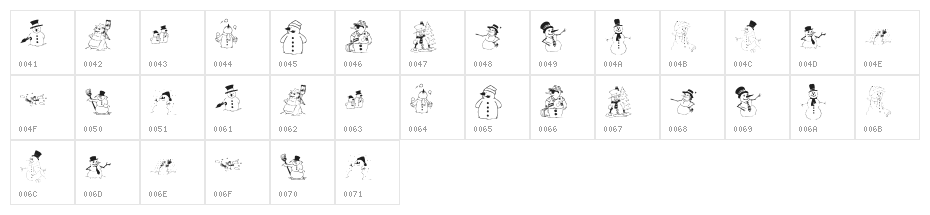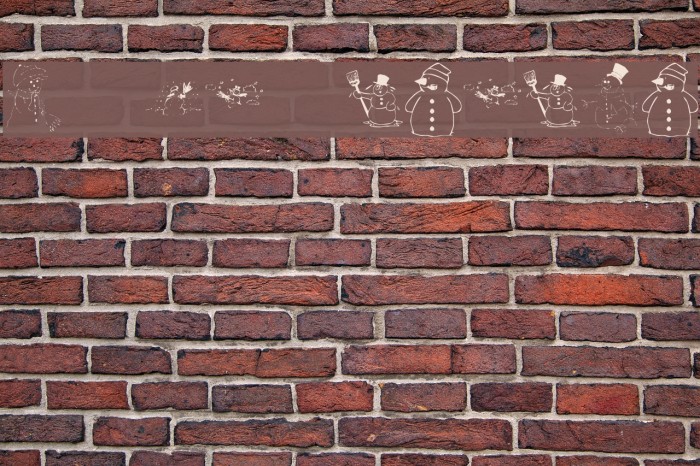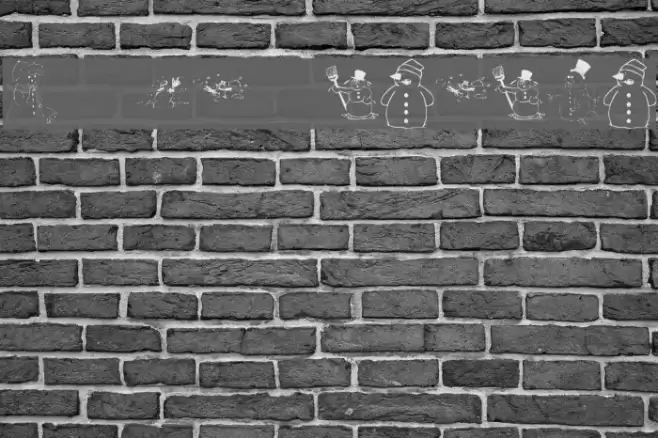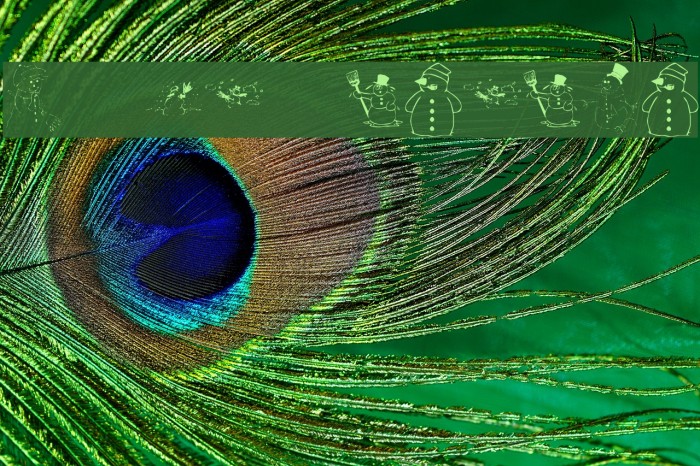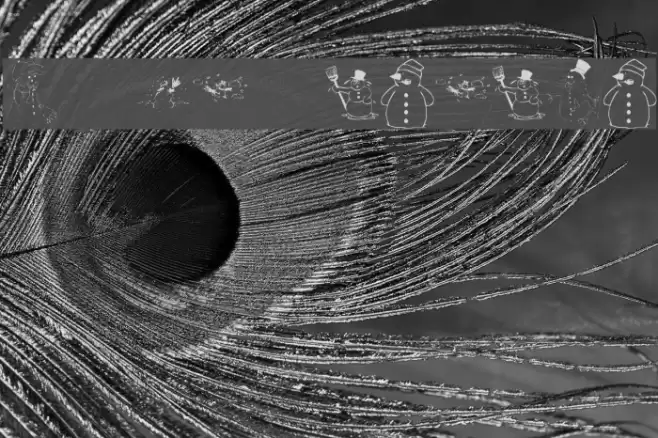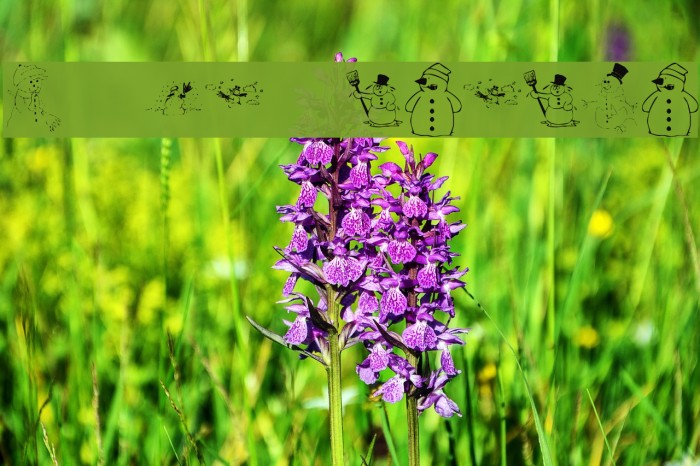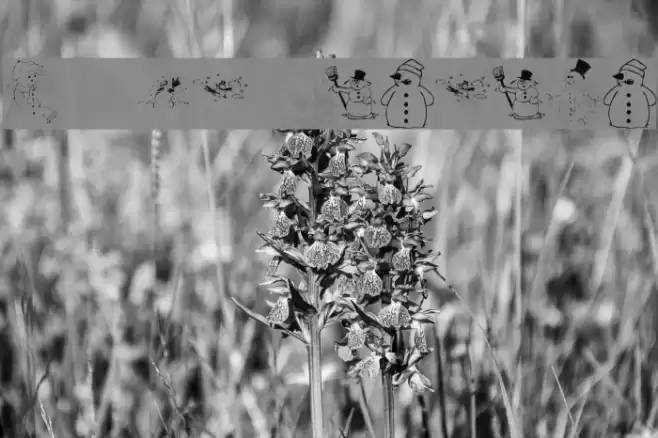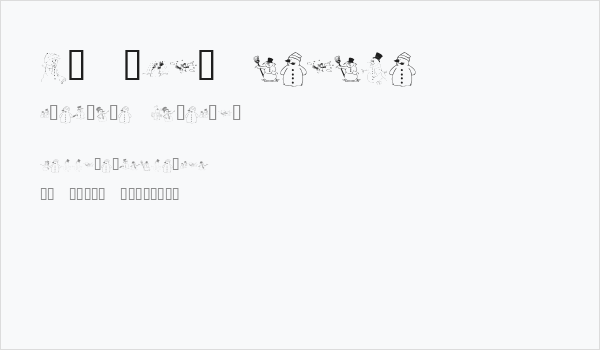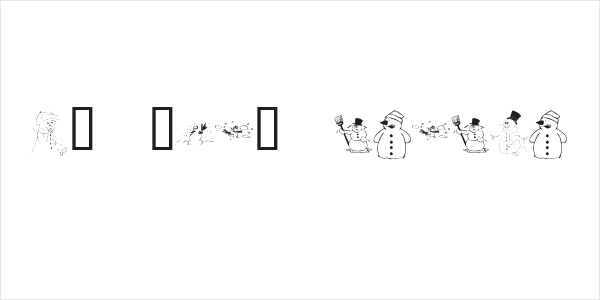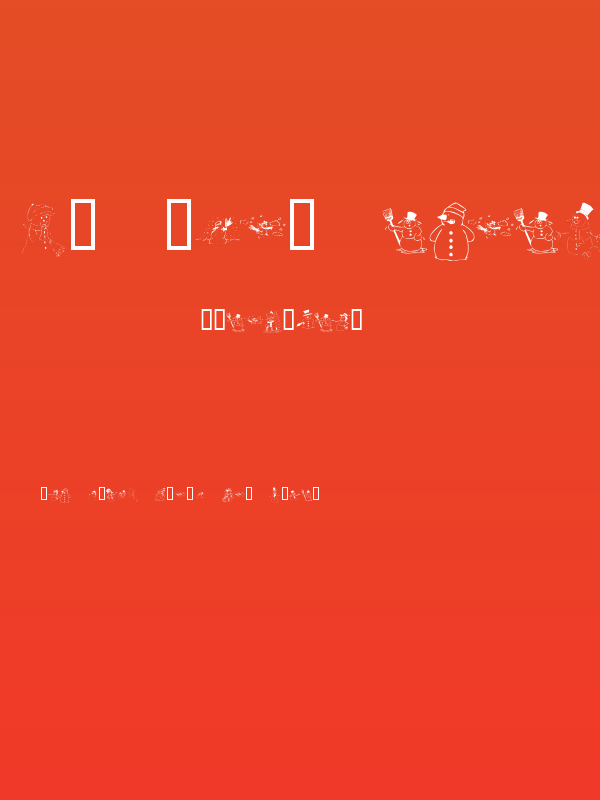
KR Snow People Font
KR Snow People Description
This font features whimsical snowman characters in various playful poses, each representing a different letter or symbol. The characters are detailed with accessories like hats, scarves, and brooms, adding a festive and cheerful touch. The design is highly decorative, making it ideal for holiday-themed projects. The characters are drawn with a light, sketch-like quality, giving them a hand-drawn appearance. The font is not suitable for body text but excels in creating a fun and engaging atmosphere in titles and decorative elements.
| Use Case | Logos, Headlines, Decorative elements |
| Proposed Projects | Ideal for holiday cards, festive banners, children's book illustrations, and winter-themed event posters. |